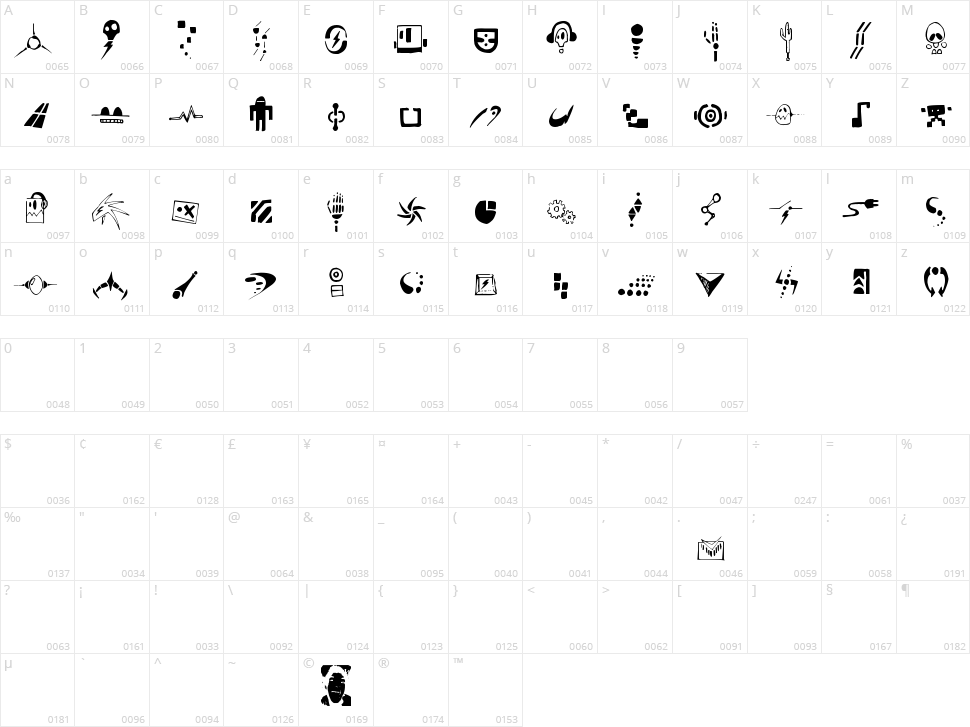
Artefekt
Artefekt Font
These were quick little concept drawings for a logo I did in 2004.
For some reason I never deleted the little drawings so I decided
to take them and turn them all into a font.
| Designer Name: | Tom Raaijmakers |